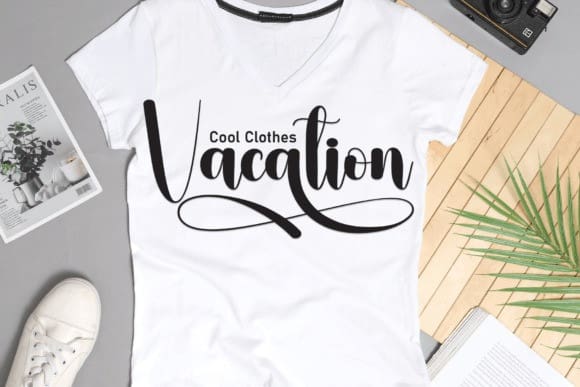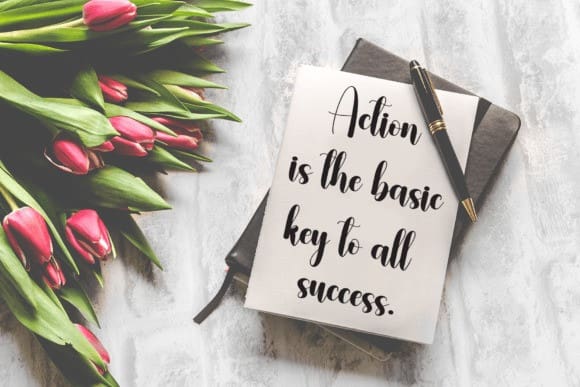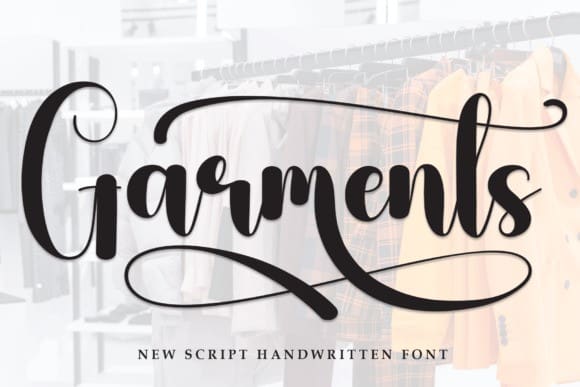
Garments Script Font
Garments Script Font is a sweet and friendly handwritten font. Cute and fun, this font is ideal for writing wedding invitations, cards, or any other design that might need a lovely touch!